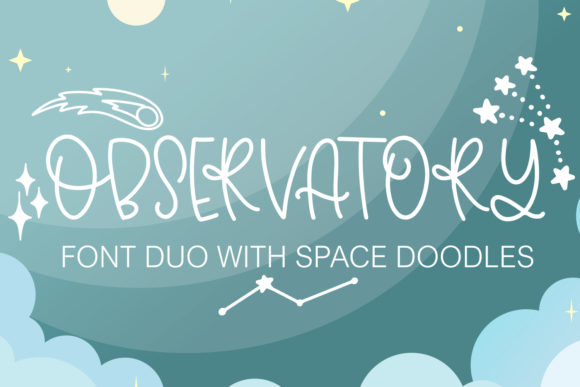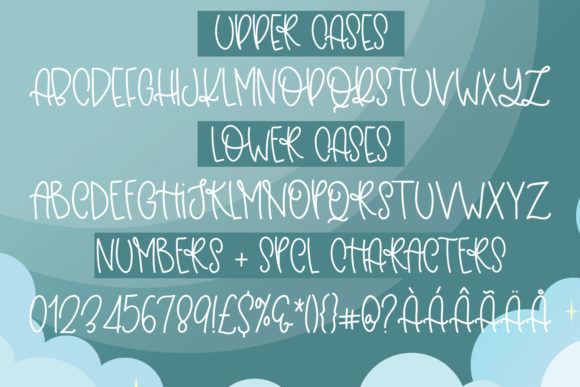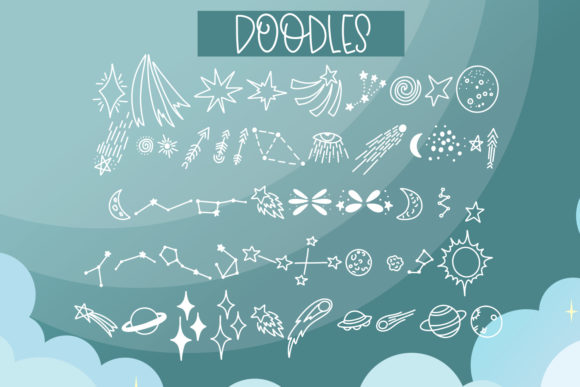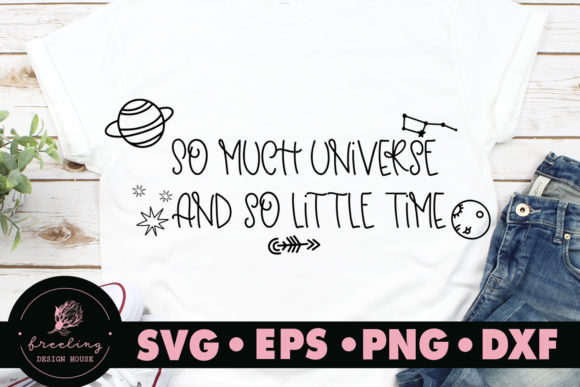
Observatory Font: Cute Handwritten Typography for Kids & DIY Crafts
About the Observatory Font
Explore the possibilities with Observatory Font, a font that offers both beauty and functionality. Observatory is a cute and quirky handwritten font. It embodies fun and authenticity and is the perfect choice for any school or kids project.
Observatory’s playful energy makes it ideal for children’s book illustrations, playful branding for toy companies, or whimsical packaging designs. It also works well in short headlines or as a decorative element within larger designs. However, its informal style is unsuitable for body text, lengthy documents, or applications requiring high readability, such as user interfaces.
Pairing Observatory with a clean sans-serif like Open Sans for body copy creates a balanced contrast of playful and legible. Alternatively, a more geometric sans-serif such as Futura would add a modern edge. For a more sophisticated touch, consider pairing it with a delicate serif font like Garamond for supporting text.
Observatory’s overall personality is undeniably fun and friendly, but its slightly irregular forms maintain a level of sophistication that prevents it from feeling childish.
Observatory Font Usage Examples
Observatory Font Example